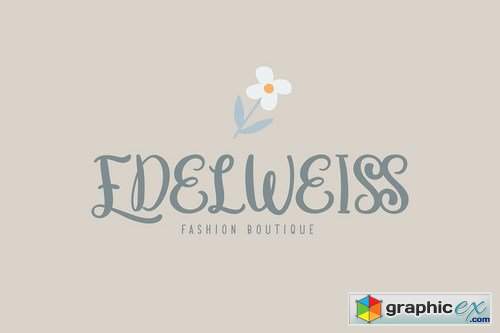
Butterfly Fun Handwritten Font
Butterfly | Fun Handwritten Font with a calligraphy style, So beautiful on invitation like greeting cards, branding materials, business cards, quotes, posters, and more!